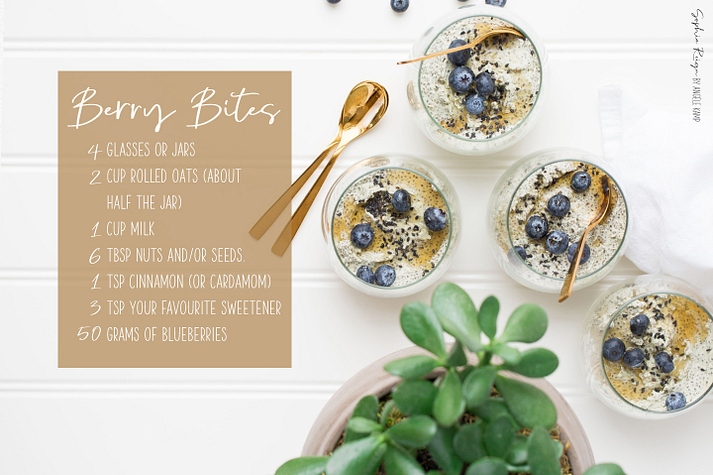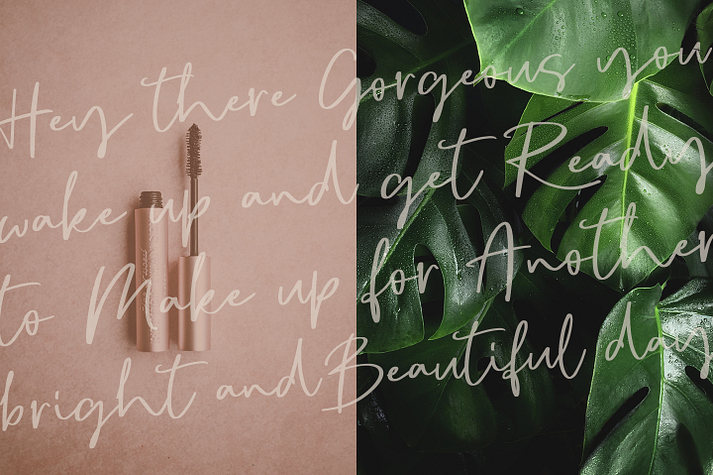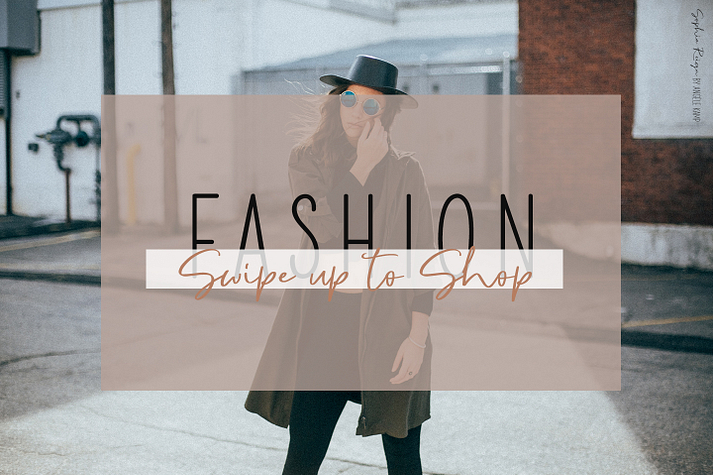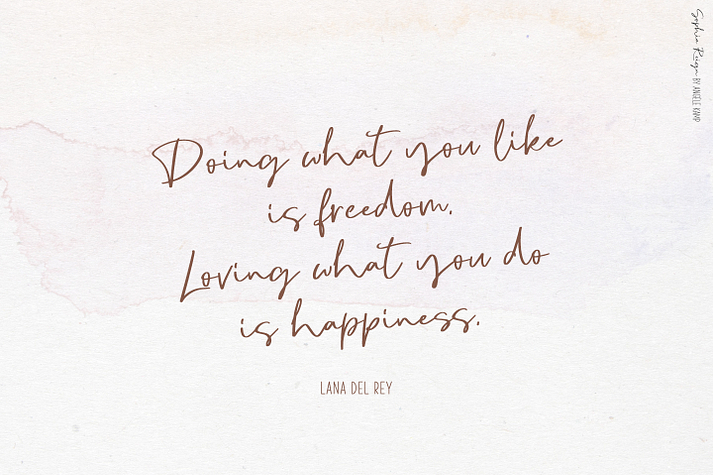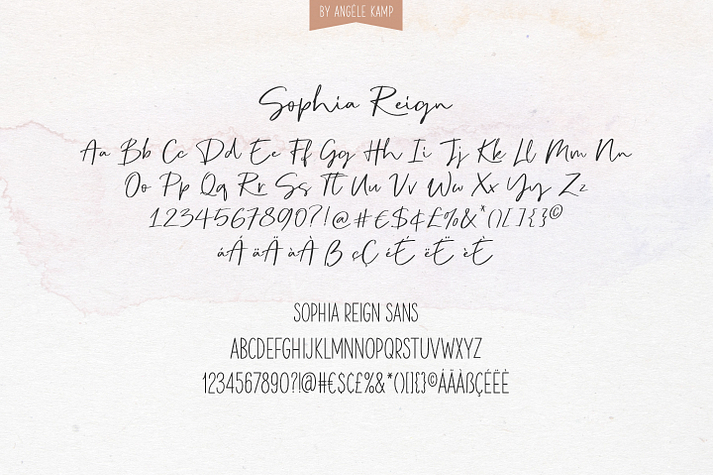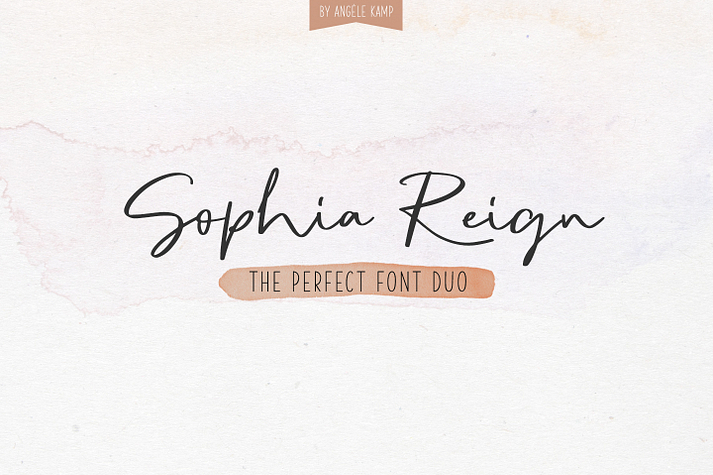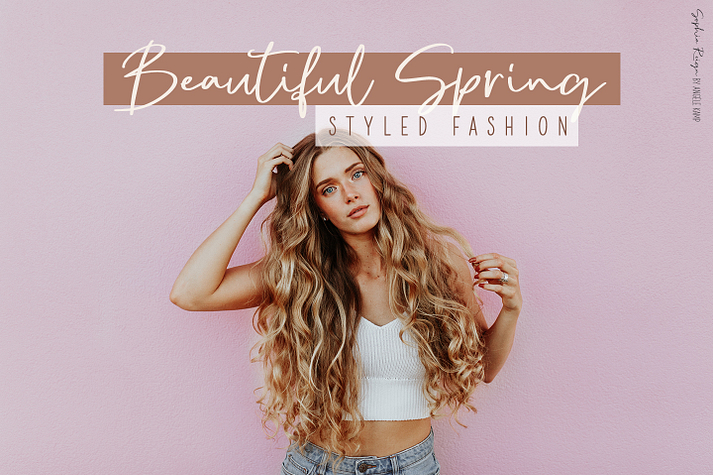
Designed by Angèle Kamp, Sophia Reign is a display sans, modern calligraphy and script font family. This typeface has three styles and was published by Angèle Kamp.
Meet Sophia Reign, the perfect font duo! She’s got a handwritten signature font and an all-caps font that pairs perfectly with it. Use it for logo’s, magazines, quotes, branding, advertisements and more.
Styles | Display Sans, Modern Calligraphy, Script |